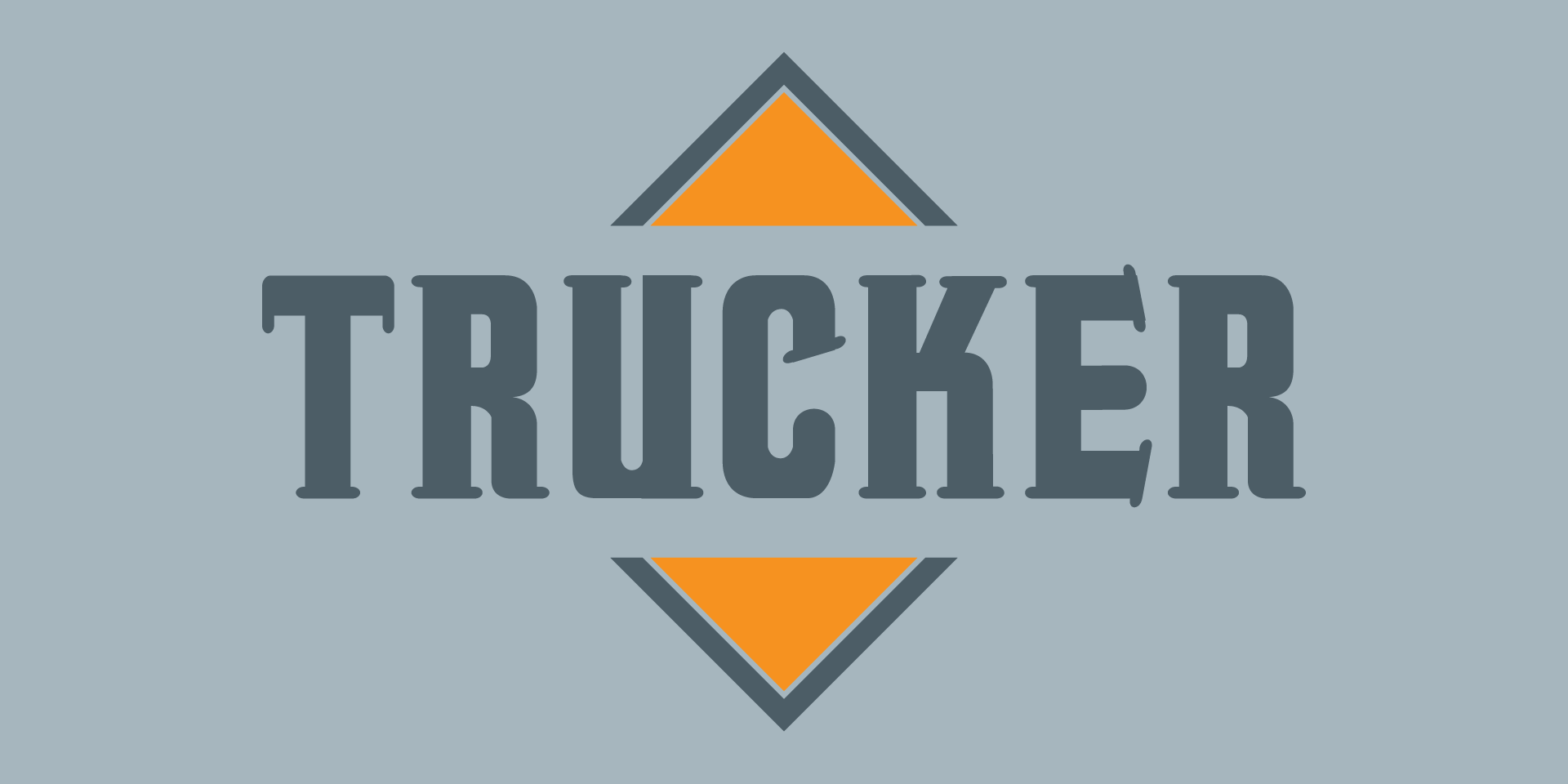
Cool Trucker Fonts Ideas. Detailed information on the trucker font: Trucker is a remaster of a classic chank font, first released in 1996 with the classic dirty name fornicator.
Licensed for personal and commercial use. Trucker is a remaster of a classic chank font, first released in 1996 with the classic dirty name fornicator. Trucker is a remaster of a classic chank font, first released in 1996 with the classic dirty name fornicator.
Detailed information on the trucker font: 35 professional truck fonts to download. This font has a tough, vintage style that makes it a powerful and reliable performer for.
Trucker And Trucker Italic Have Wide, Rounded Serifs That Give Its Bold Characters Extra Strength And Flair.